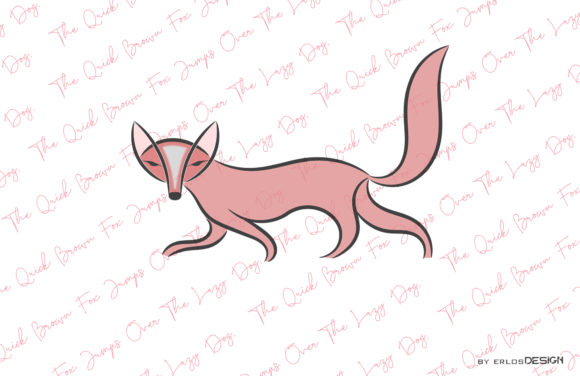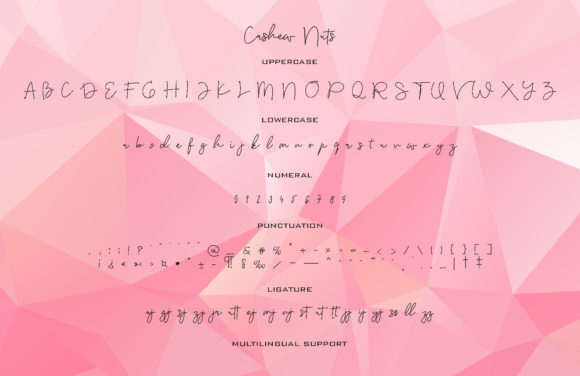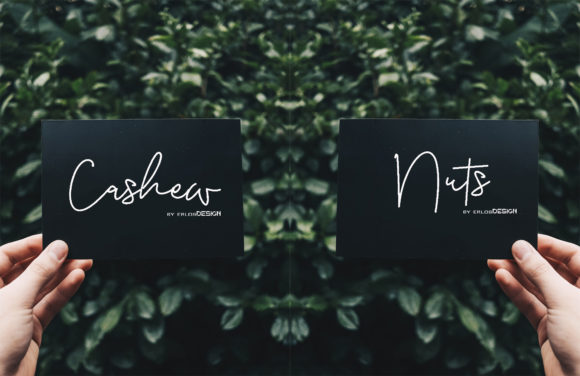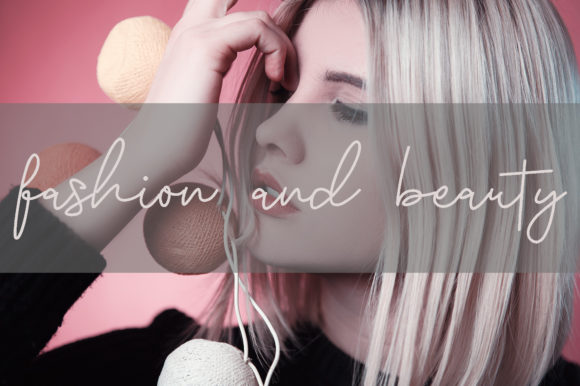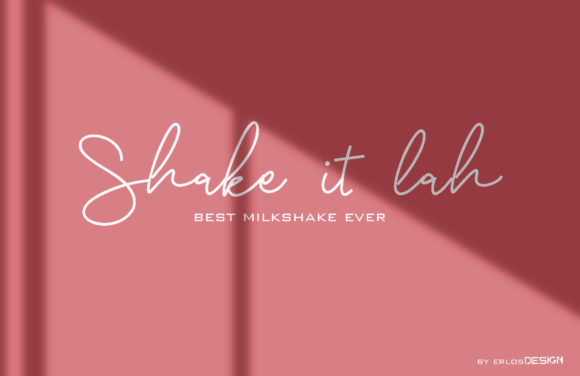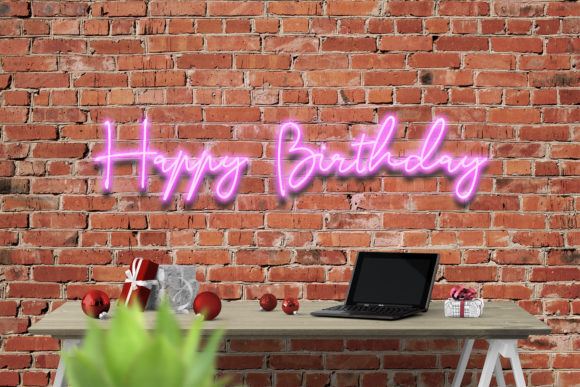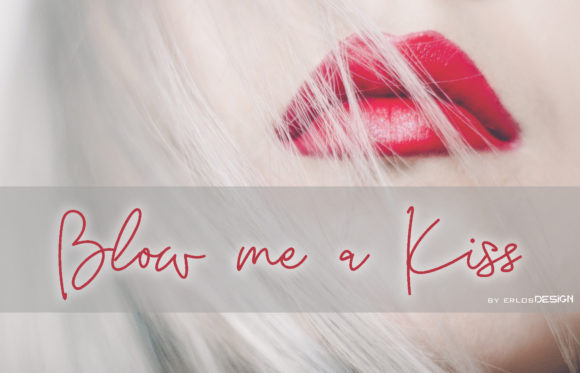
Cashew Nuts Font
About Cashew Nuts Font
Cashew Nuts is a flowing and elegant handwritten font. Its casual charm makes it appear wonderfully down-to-earth, readable and, ultimately, incredibly versatile. This versatility means that this font can be used for a wide range of designs, from stationary to greeting cards!